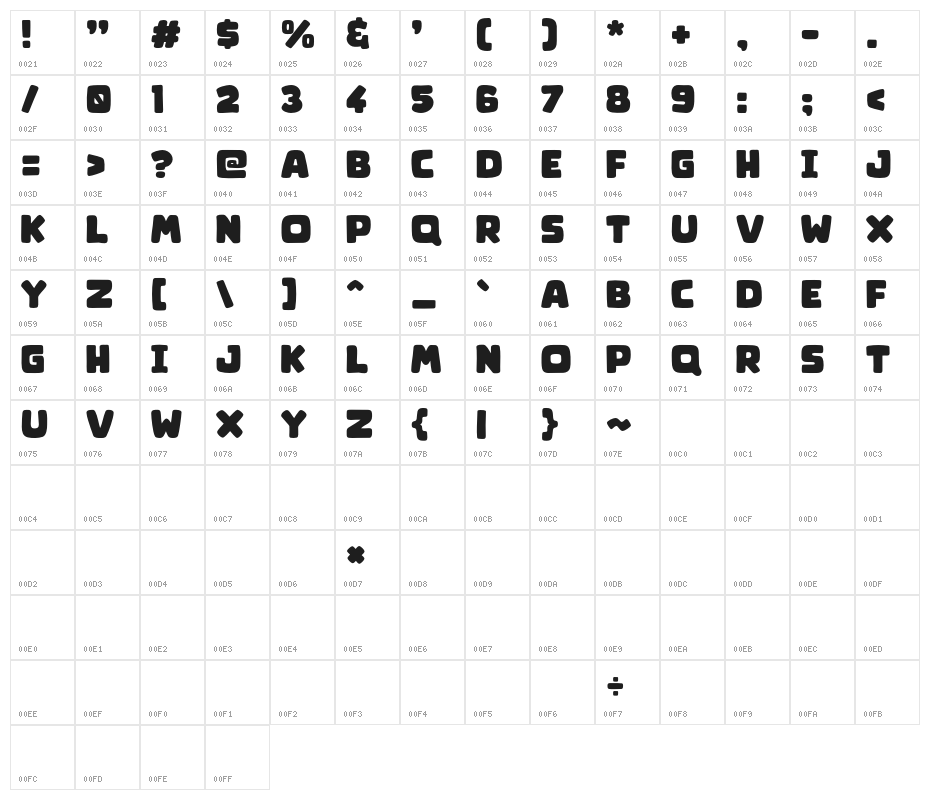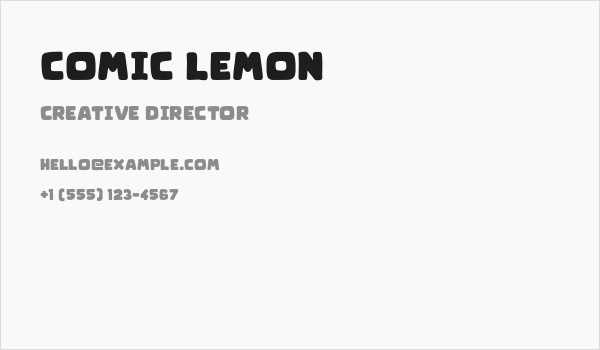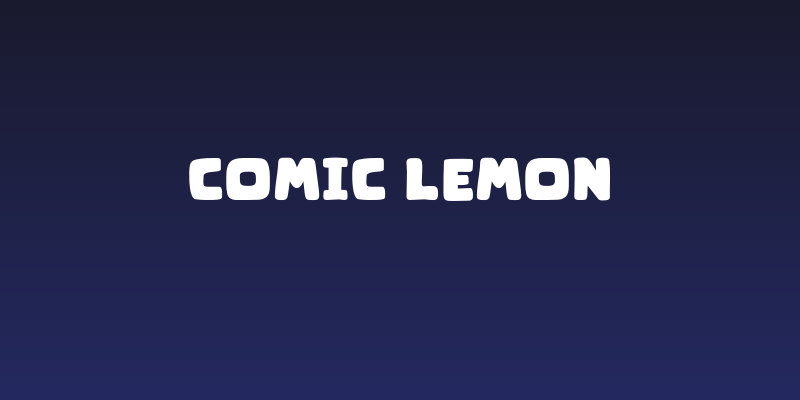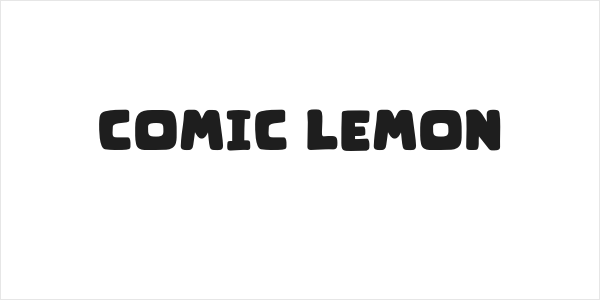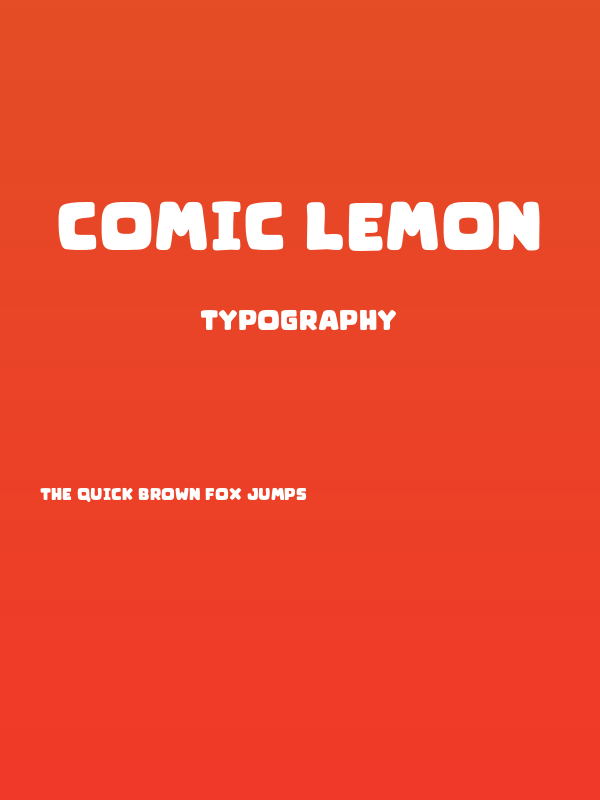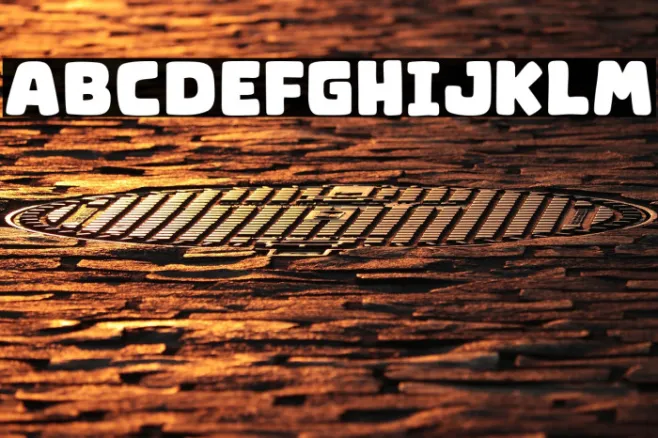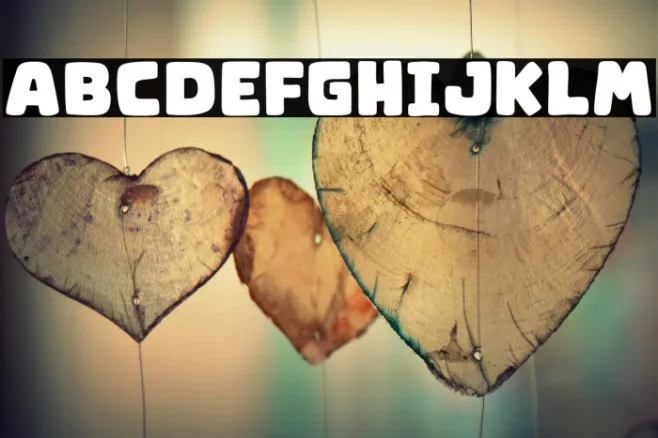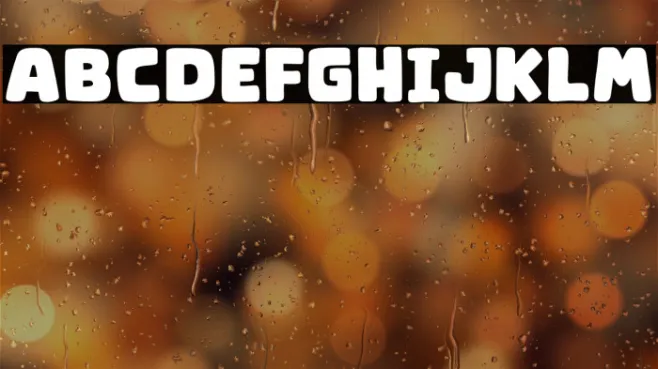
Comic Lemon Font
Comic Lemon Description
This playful and bold font features thick, rounded characters that exude a sense of fun and creativity. The letters are uniformly bold with a slightly irregular shape, giving them a hand-drawn, cartoonish appearance. The numbers and special characters maintain the same playful style, making this font ideal for projects that require a lively and informal touch. Its boldness ensures excellent readability, while the rounded edges add a friendly and approachable feel. The font's consistent weight and width make it versatile for various design applications.
| Overall Style | Playful, Cartoonish |
| Proposed Projects | Ideal for comic books, children's books, playful branding, and posters. |